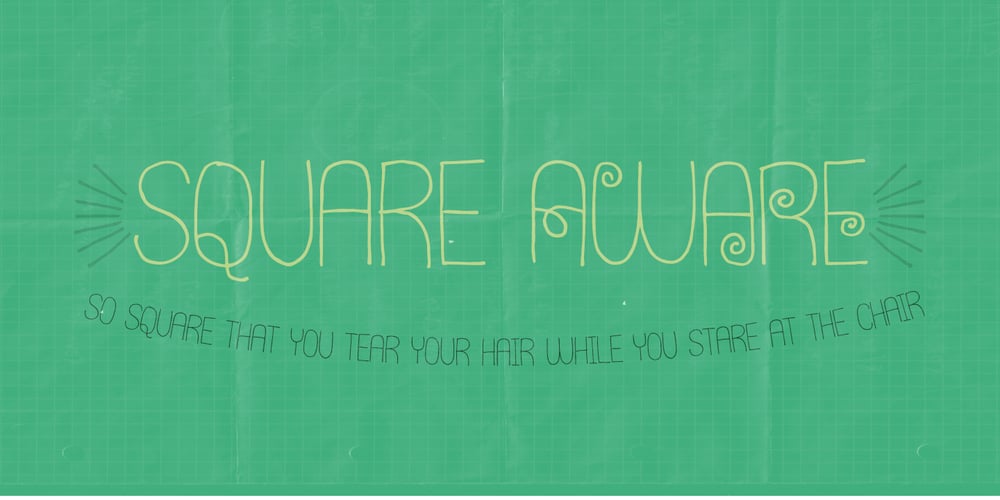
Square Aware
Square Aware font
Square Aware Font Family was designed by Jakob Fischer and published by PizzaDude.dk. Square Aware contains 2 styles and family package options. Even though Square Aware was drawn on a grid, the font has got a natural and organic touch. Play around with the curly alternate letters along with the gentle swashes to make your text stand out. And while you’re at it, throw in some ornaments (included!) Be there, and be square! 🙂